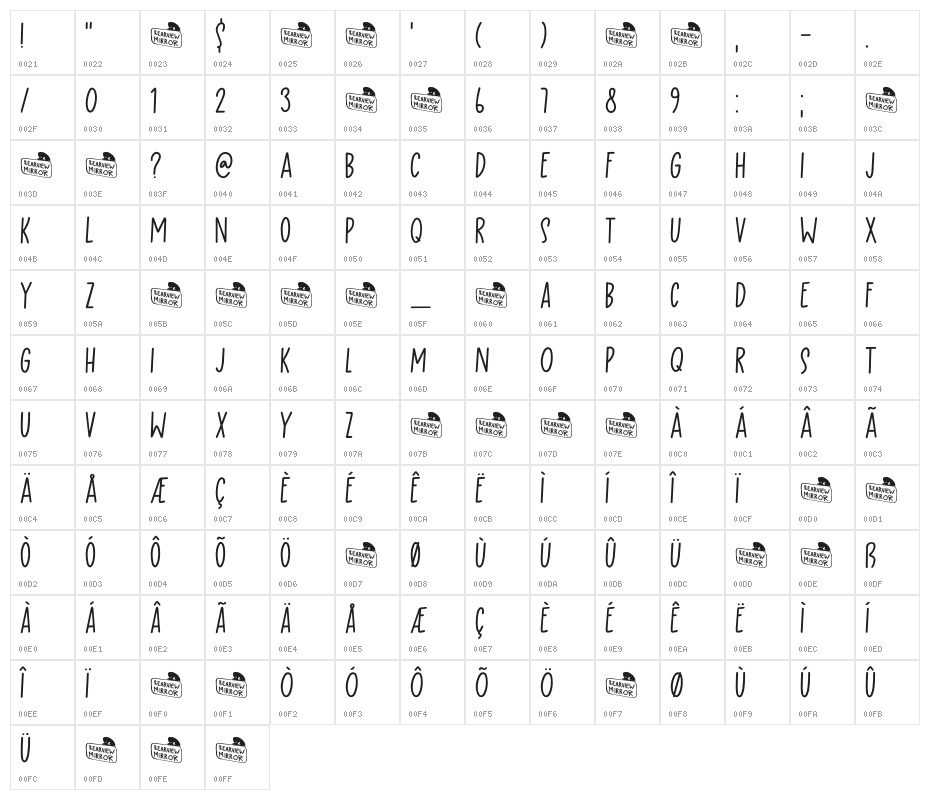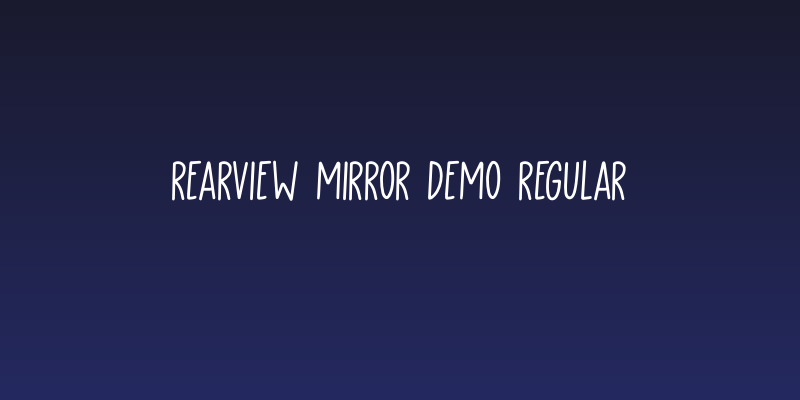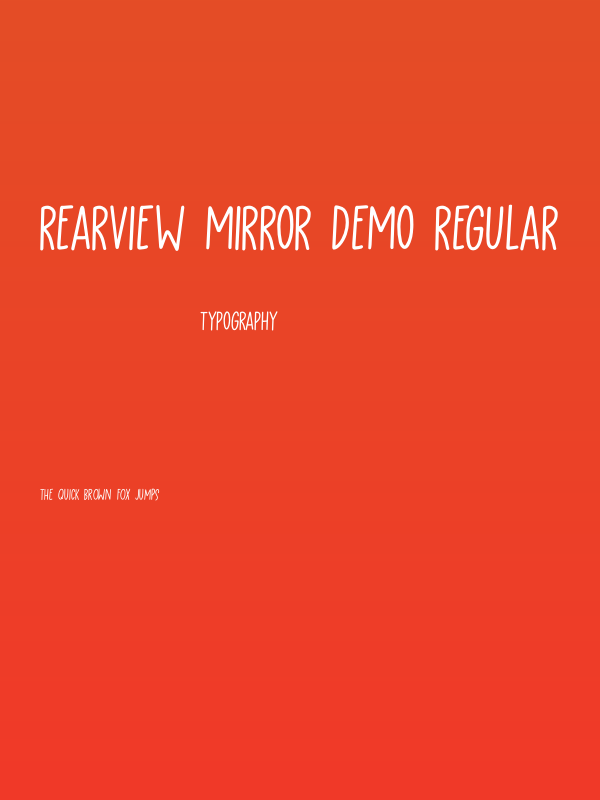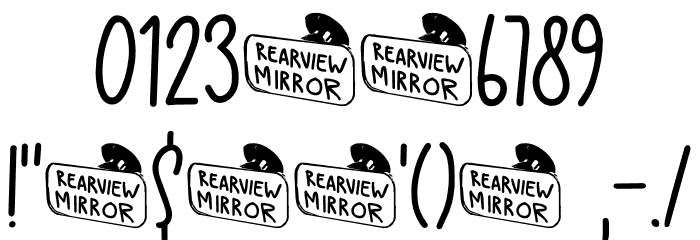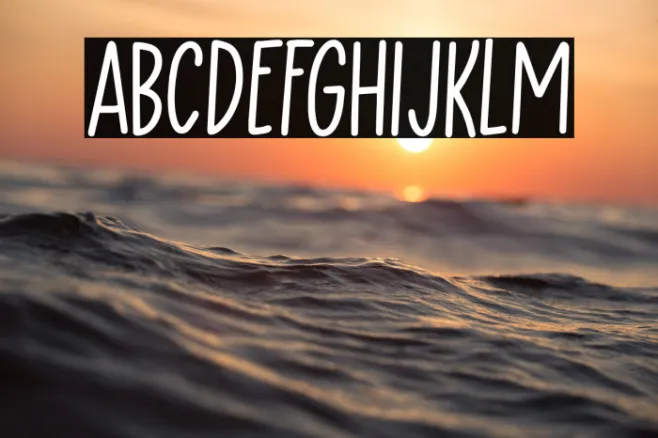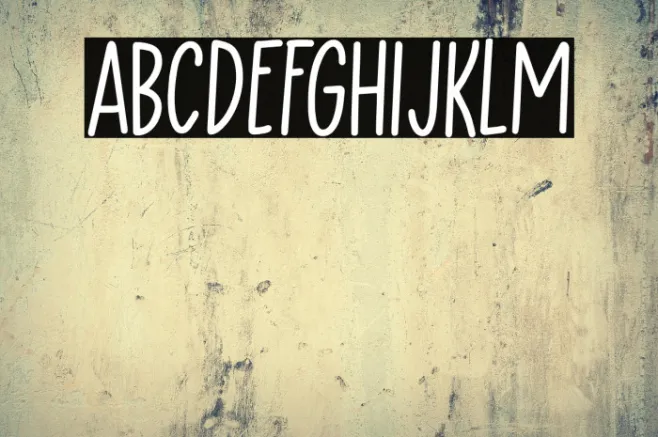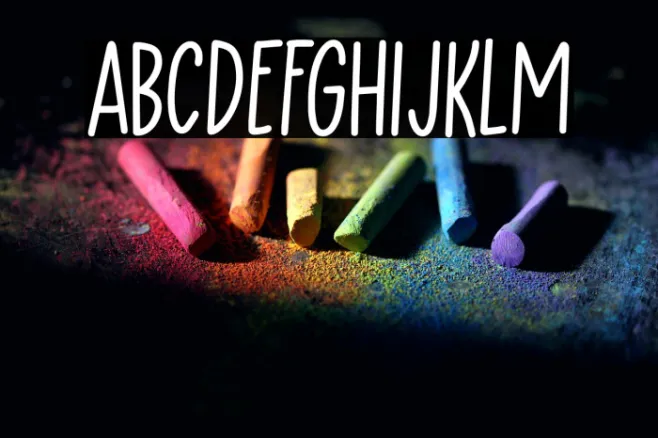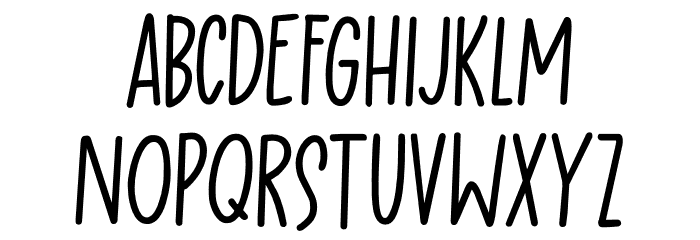
Rearview Mirror DEMO Regular Font
Rearview Mirror DEMO Regular Description
This font features a playful and casual handwritten style, characterized by its smooth, rounded edges and slightly irregular letterforms. The uppercase and lowercase letters maintain a consistent flow, giving a sense of movement and energy. The numbers and special characters are designed with the same playful aesthetic, making them suitable for informal and creative projects. The font's overall appearance is friendly and approachable, with a touch of whimsy that adds personality to any design.
| Proposed Projects | Ideal for children's books, greeting cards, playful branding, and social media graphics. |